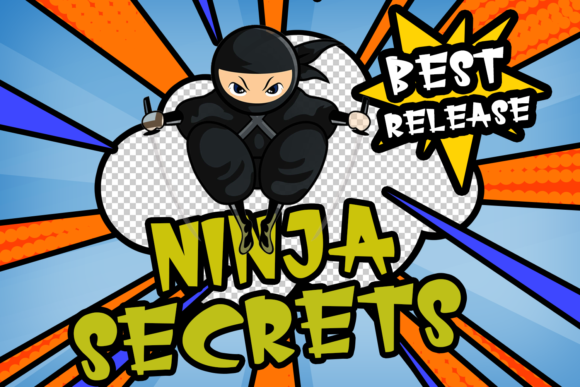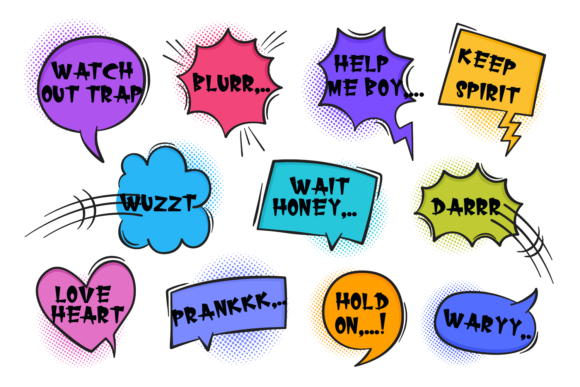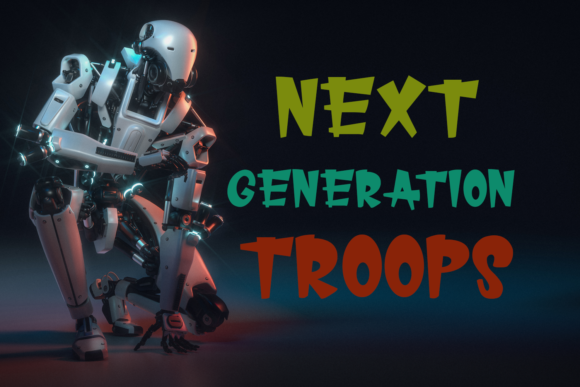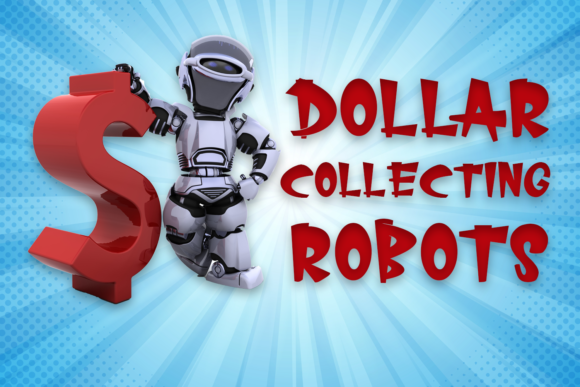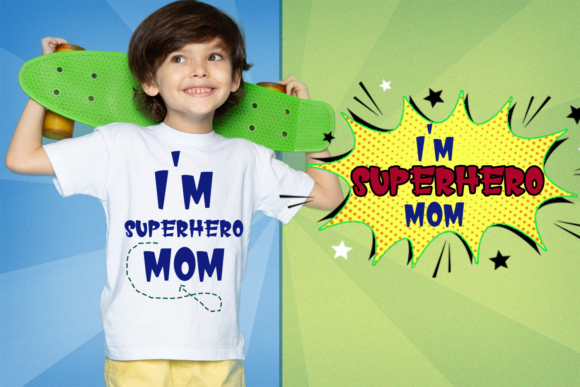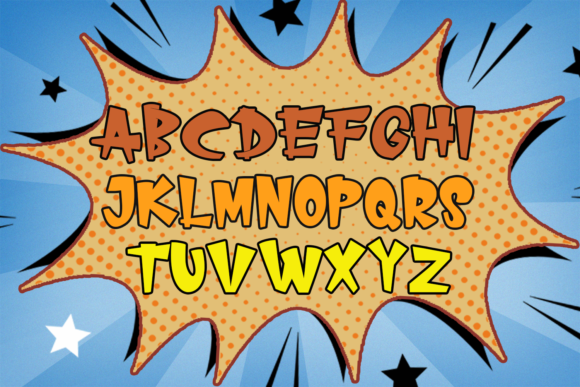
Bring Joy to Your Designs with Comic Lovers Font
You’ve spent hours brainstorming ideas, sketching out concepts, and pouring your heart into a design project, and finally, you’re ready to bring it to life. But, what if your design needed that extra something to make it truly pop? That’s where the Comic Lovers Font comes in – a cute and quirky color font that’s guaranteed to add an incredibly joyful touch to your designs.
This beautiful color font is perfect for designers who want to add a playful and whimsical feel to their work. With its unique and colorful characters, the Comic Lovers Font is sure to make your designs stand out from the crowd. Whether you’re creating a social media graphic, a blog post, or a marketing campaign, this font is the perfect addition to take your work to the next level.
Key Features of Comic Lovers Font
- Unique Characteristics: Comic Lovers Font features a playful, hand-drawn design with bold lines, rounded edges, and subtle texture, making it perfect for comic books, graphic novels, and children’s literature.
Designer Review: Comic Lovers Font
Overall, I think the Comic Lovers Font has a lot of potential, but it’s not without its quirks. Let’s dive in and see what’s working well and where it falls short.
- The font’s playful and fun vibe is perfect for comic book-inspired designs, kids’ books, and even some gaming projects.
- The bold weight is great for titles and headings, while the light weight is ideal for body text.
- The font is highly customizable, allowing you to adjust the spacing, width, and even the shape of the letters.
- The font can be a bit too playful for more serious or formal designs, so be cautious when using it in those contexts.
- The font’s lines and curves can sometimes appear a bit too rough or uneven, especially at smaller sizes.
- The font is not optimized for use in very small sizes, so it may not be the best choice for text that needs to be read at a distance.
The Comic Lovers Font is a fun and versatile font that’s perfect for projects that need a playful touch. While it has some limitations, I think it’s a great choice for designers who want to add a bit of whimsy to their work. Just be mindful of its potential drawbacks and use it in contexts where it will shine.
Comic Lovers Font is ideal for creating comic book-inspired graphics, posters, and social media posts. It’s also great for adding a touch of humor or playfulness to your designs. Use it to create:
- Comic book-style posters and flyers
- Social media posts with a humorous twist
- Graphic novels and comic strips